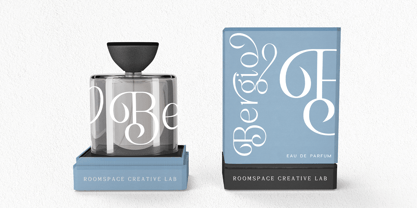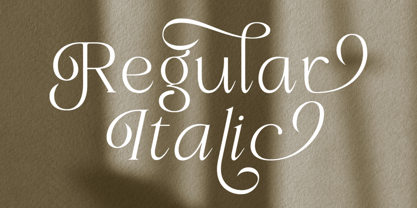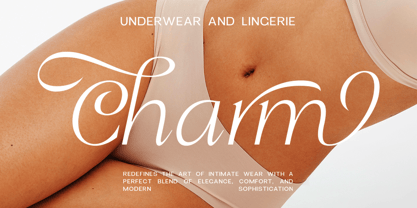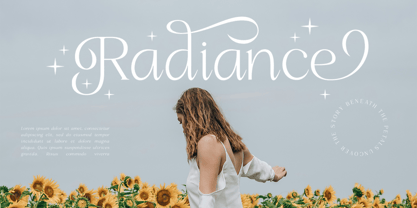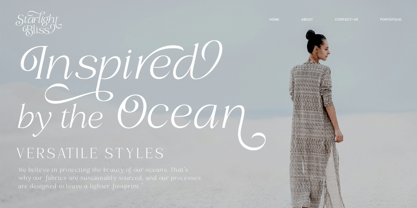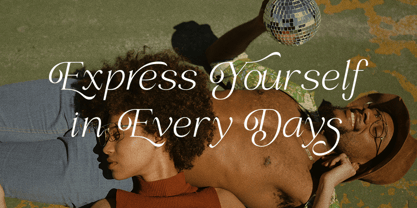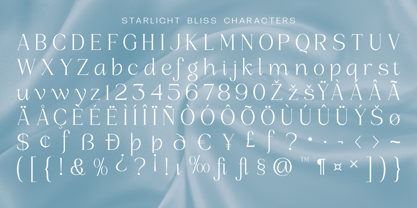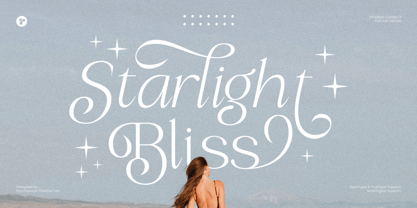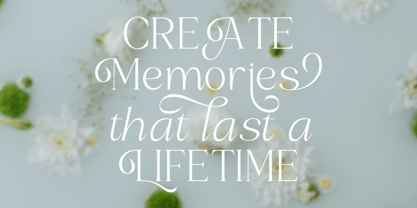
Starlight Bliss
La familia tipográfica Starlight Bliss fue diseñada por Bakhrudin Ja'far y publicada por Jafar07. Starlight Bliss contiene 2 estilos y opciones de paquete familiar. Más información sobre esta familia
Experience the timeless elegance of Starlight Bliss, a modern serif font designed to elevate your creations. With its graceful swashes, alternate characters, and sophisticated style, this typeface is perfect for logos, branding, invitations, and new editorial layouts. Its versatile design seamlessly pairs with other fonts, offering endless creative possibilities while maintaining a luxurious and professional look.
A little from my personal design & background: My name is Bakhrudin Ja'far, I live in Malang, Indonesia. I am currently completing my degree in visual communication design and I have worked as a lettering artist and logo designer for many years. I finally started my studio called roocspace creative lab (jafar07) Studio a few months ago and with my team made my letters into typography.